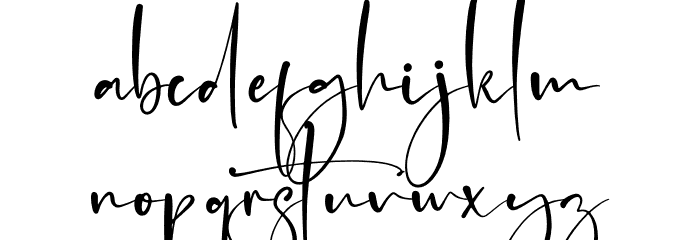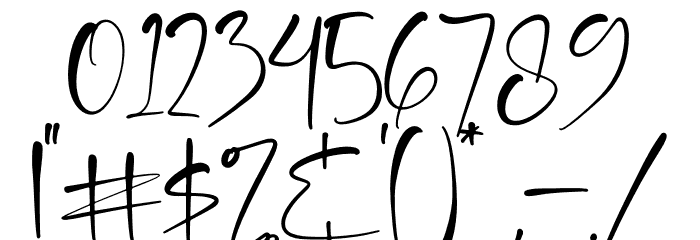
Mantilda Kristine Font
This font features a dynamic and flowing script style, characterized by its elegant and fluid letterforms. The uppercase letters exhibit a sense of movement with their sweeping curves and loops, while the lowercase letters maintain a consistent rhythm with their connected strokes. The numerals are bold and slightly slanted, complementing the overall cursive aesthetic. Special characters are creatively integrated, adding a playful touch to the design. The font's artistic flair makes it suitable for projects that require a personal and expressive touch.
A dynamic and flowing script font with elegant, fluid letterforms.
- Font: Mantilda Kristine
- Proposed Projects: Ideal for wedding invitations, greeting cards, branding, and logo design.
- Category: Script
- Use Case: Logos, Invitations, Decorative text